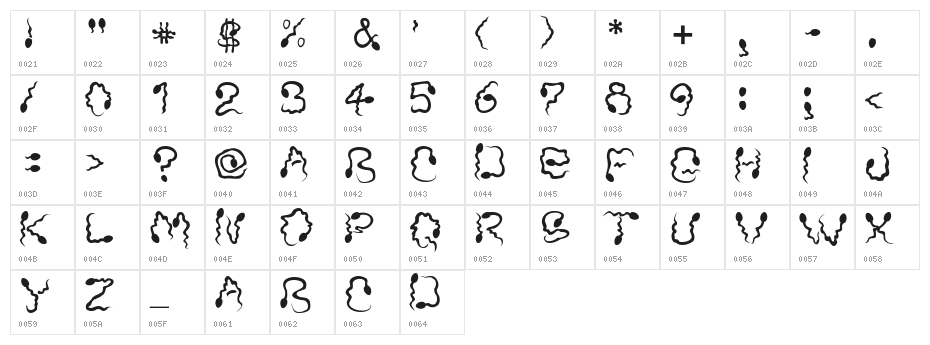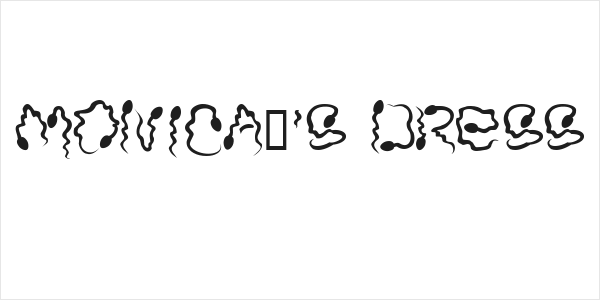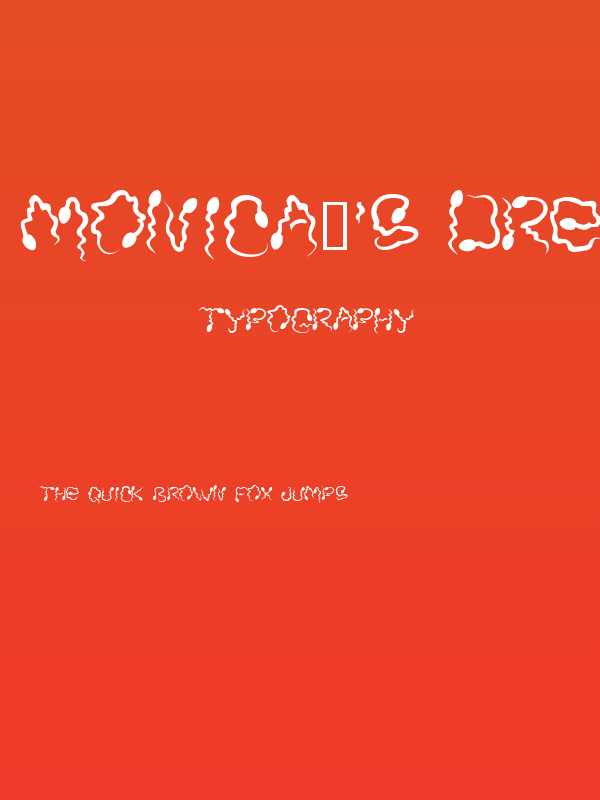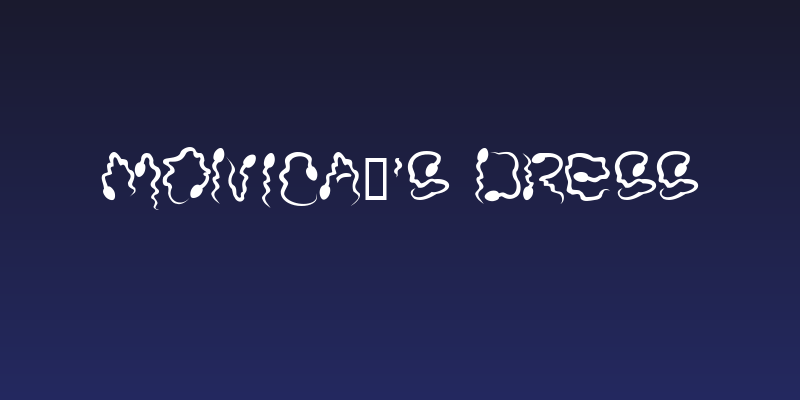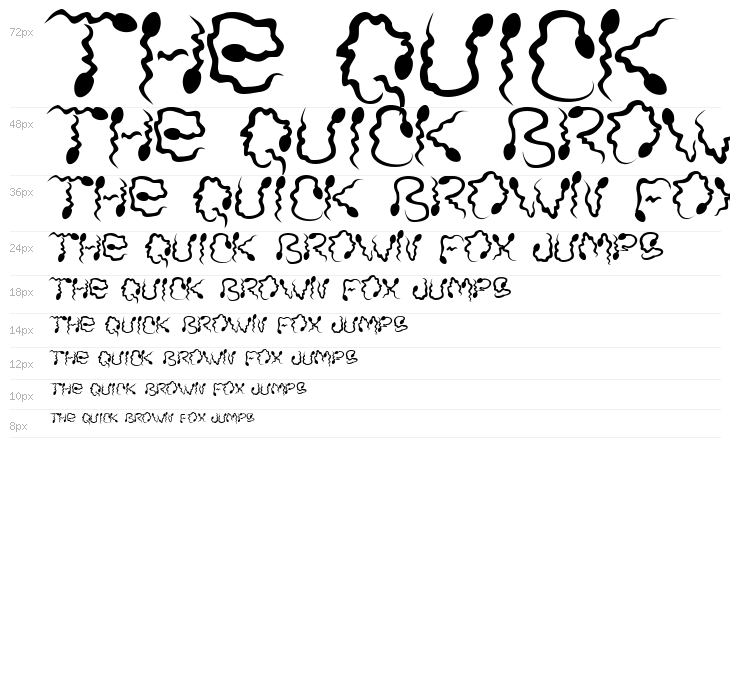
Monica's Dress Font
Monica's Dress Description
This font features a highly decorative and whimsical style, characterized by its unique organic shapes and flowing forms. Each character appears to be crafted from a series of interconnected blobs and tendrils, giving it a playful and almost liquid appearance. The font maintains a consistent thickness throughout, with no significant variation in stroke width, resulting in a low contrast design. The characters are evenly spaced, though the irregular shapes create a dynamic visual rhythm. This font is ideal for creative projects that require a bold and eye-catching display, such as posters, album covers, or branding for unconventional products.
| Proposed Projects | Ideal for posters, album covers, and creative branding projects. |